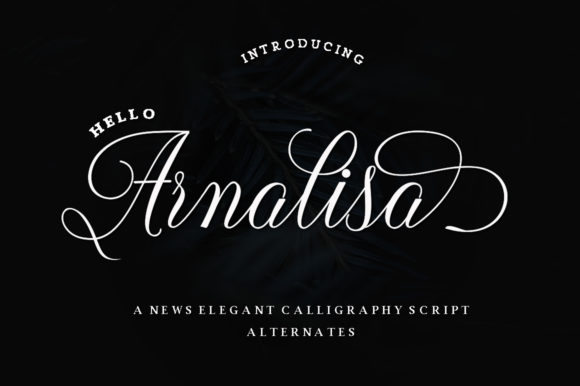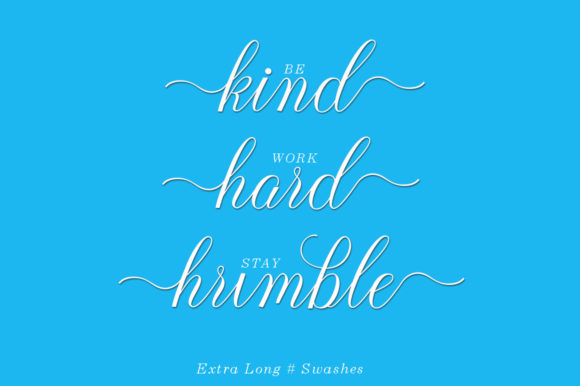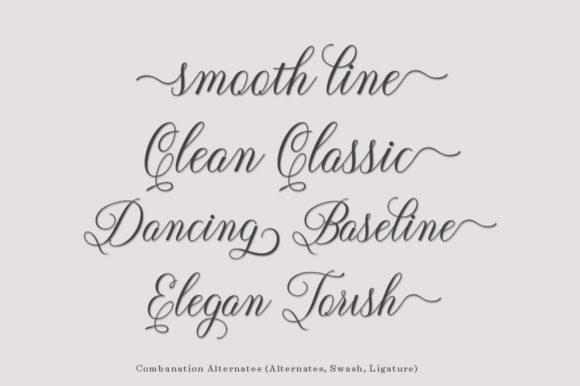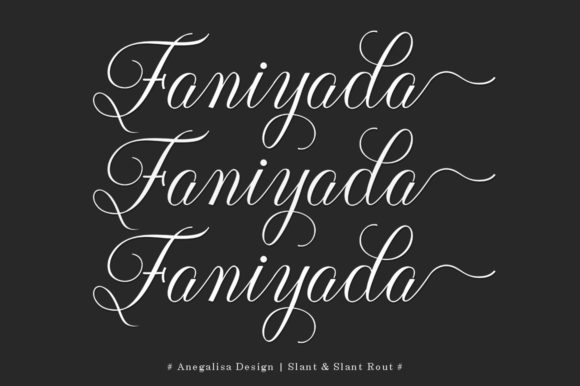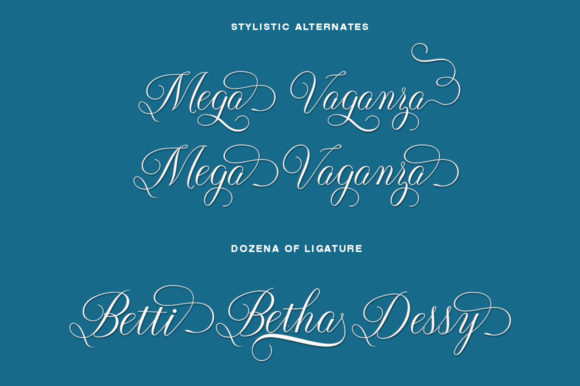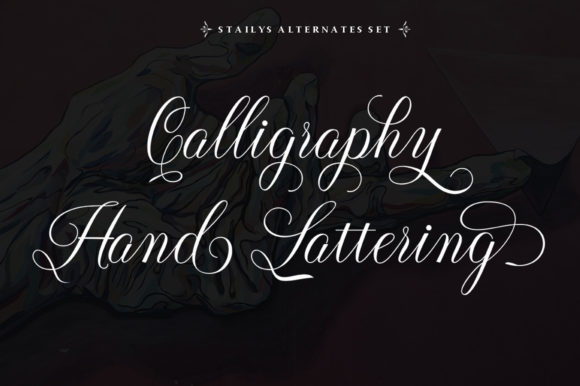
Arnalisa Font
About Arnalisa Font
Arnalisa is a cursive calligraphy style script. It has a luxurious style and is perfect for upscale and chic designs.